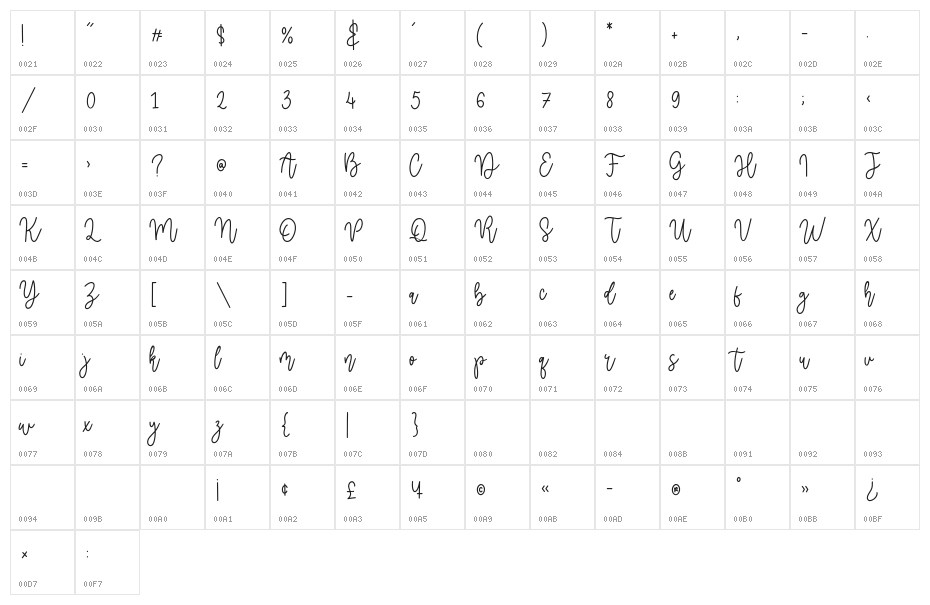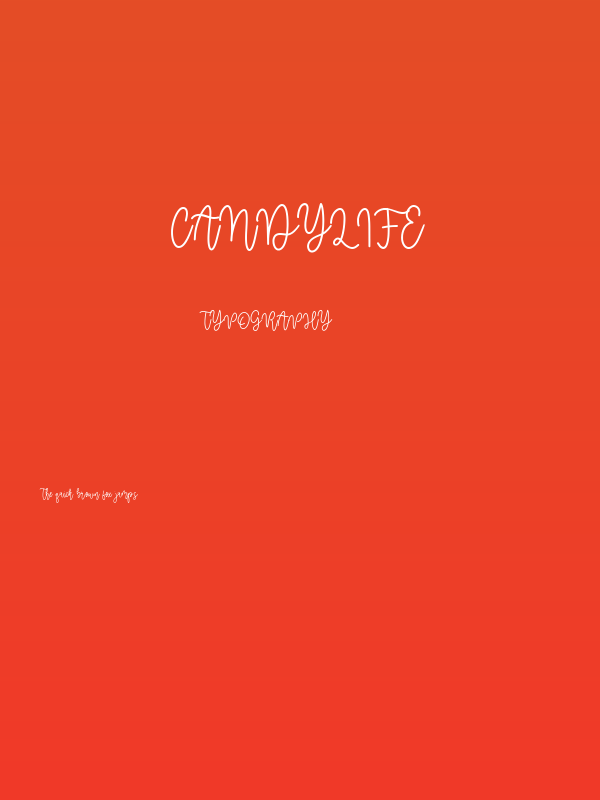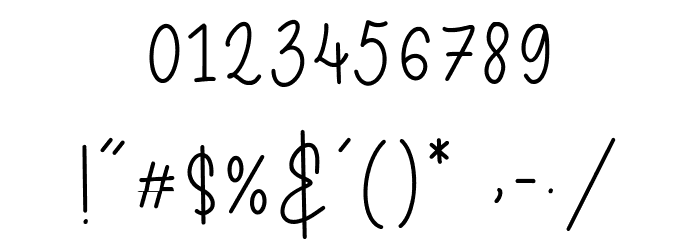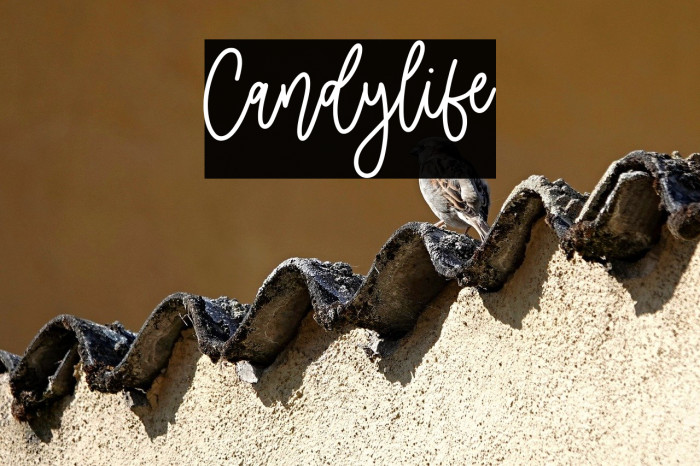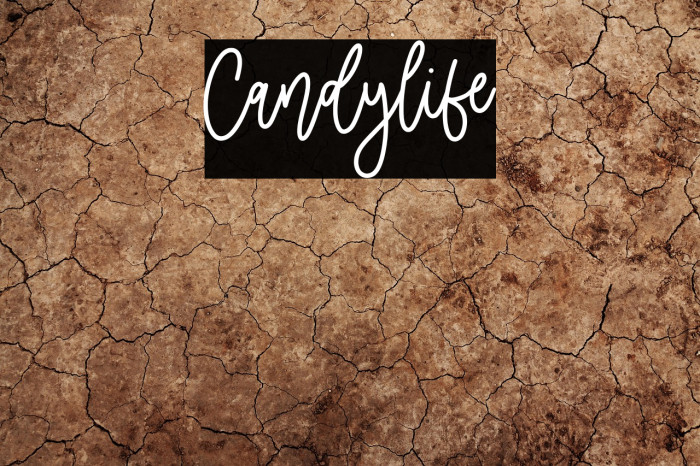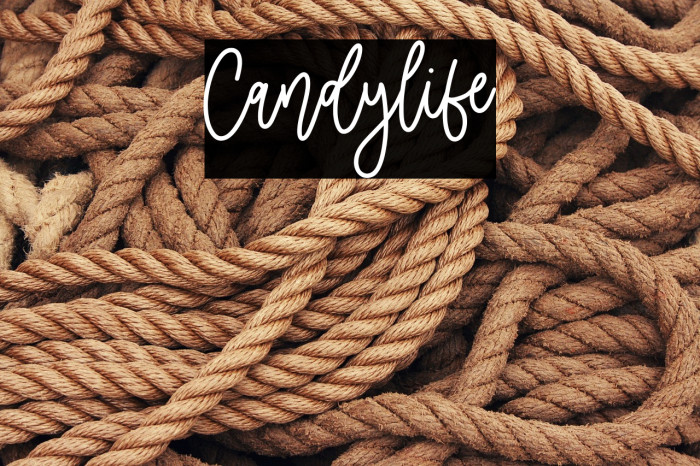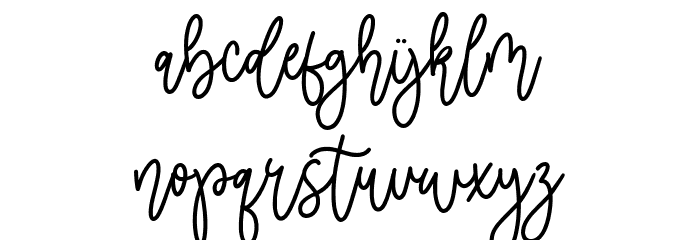
Candylife Font
Candylife Description
This font features a playful and whimsical script style, characterized by its flowing, cursive letterforms. The uppercase letters are elegantly looped and connected, while the lowercase letters maintain a consistent, fluid motion. The numbers and special characters complement the overall design with their rounded and smooth curves. This font exudes a sense of fun and creativity, making it ideal for projects that require a personal and friendly touch. The strokes are consistent in width, providing a balanced and harmonious appearance.